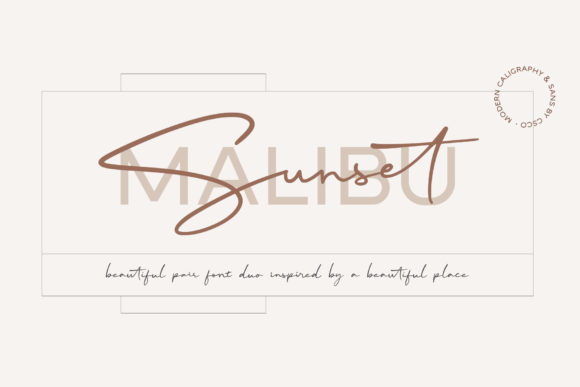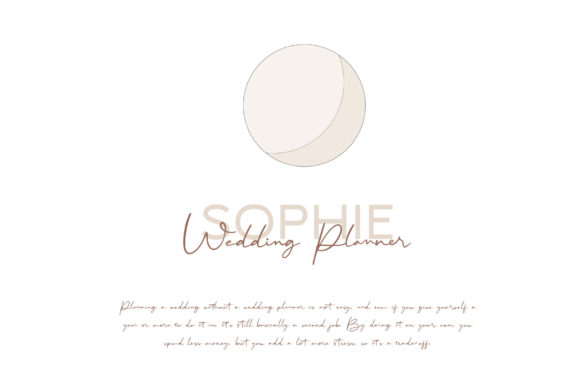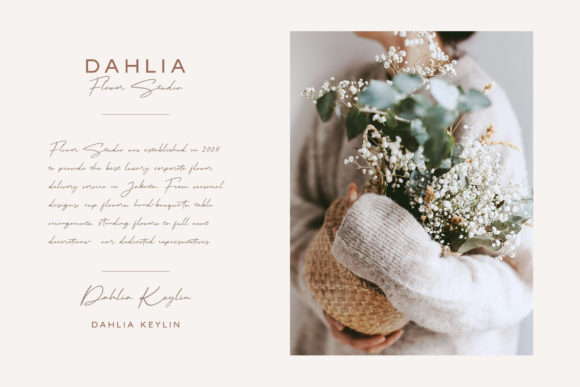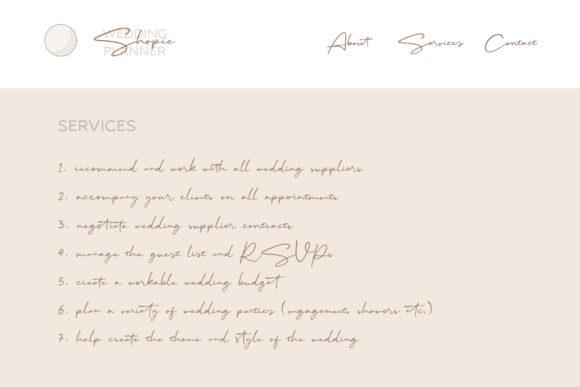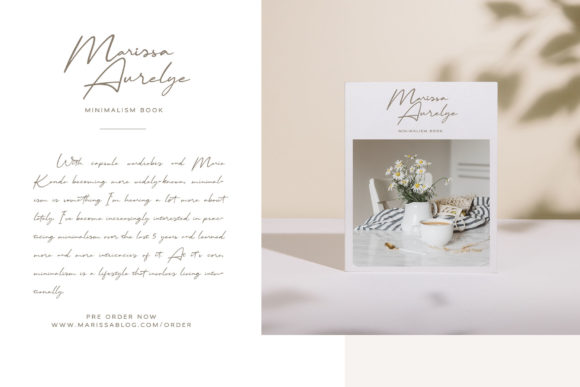
Malibu Sunset Font
Malibu Sunset is a match made in heaven duo font. Defined by an elegant touch, this font is perfect for your favorite projects. Fall in love with Malibu Sunset’s incredibly distinct and timeless style and use it to create spectacular designs!